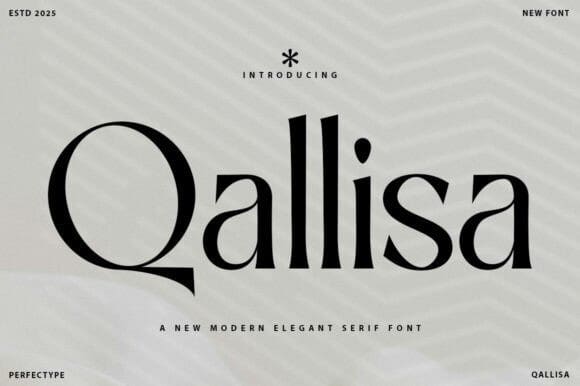
Qallisa Font
Qallisa Font is an elegant and feminine serif with a touch of modern look and feel. This font type is perfectly made to be applied especially on logos, headlines, signage, and various other formal forms such as invitations, labels, logos, magazines, books, greeting/wedding cards, packaging, fashion, makeup, stationery, novels, labels, or any type of advertising purposes.